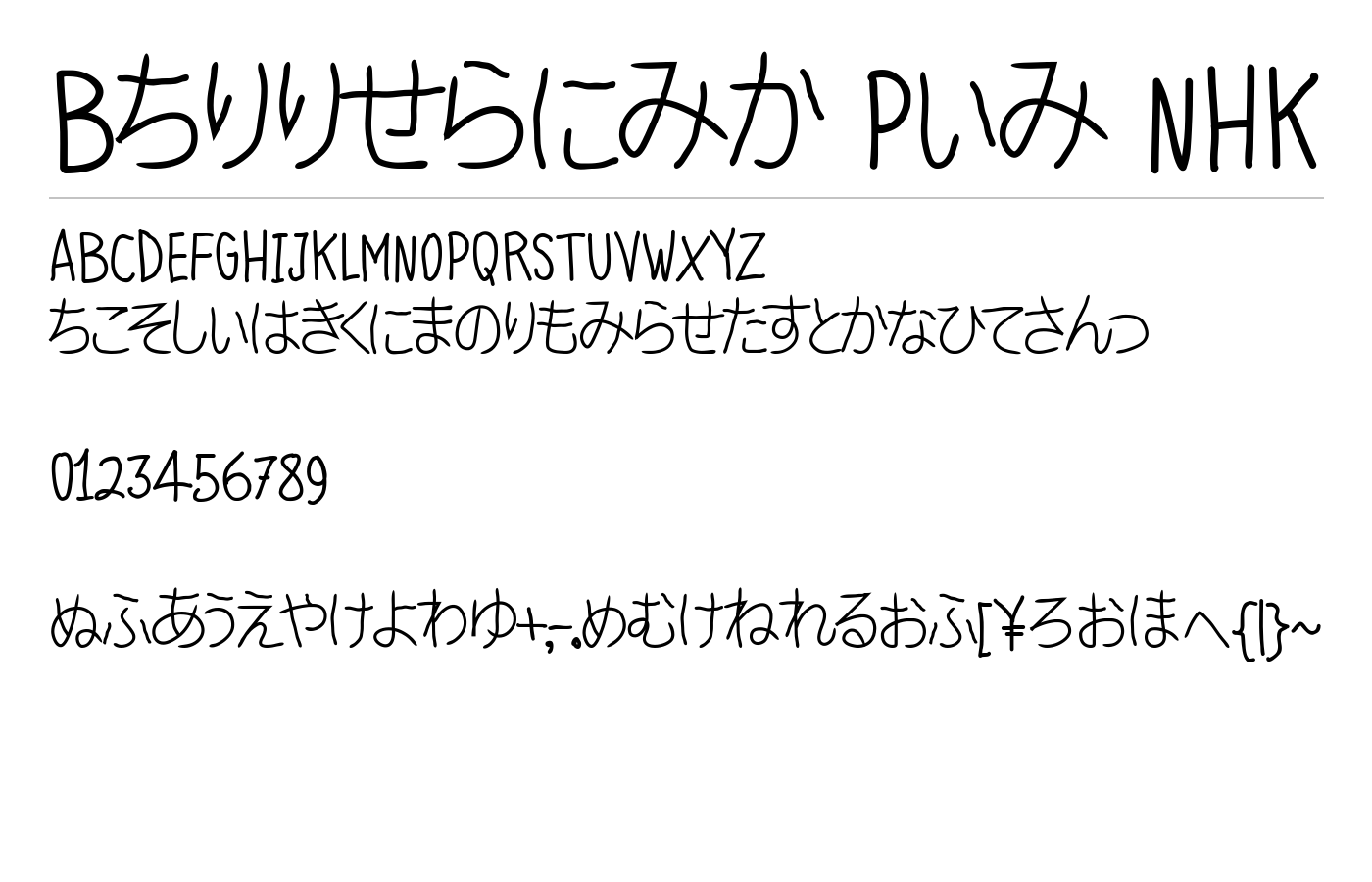
Ballpoint Pen NHK is a playful, casual handwritten sans serif font that mimics the natural flow of writing with a ballpoint pen. It features tall, narrow letterforms with a light weight and irregular strokes that give it a friendly, informal feel, perfect for creative projects, casual branding, or personal communication. Its unique quirks and clear readability make it an excellent choice for adding a personal touch to posters, websites, and youth-focused designs.
Ballpoint Pen NHK Font
About Ballpoint Pen NHK Font